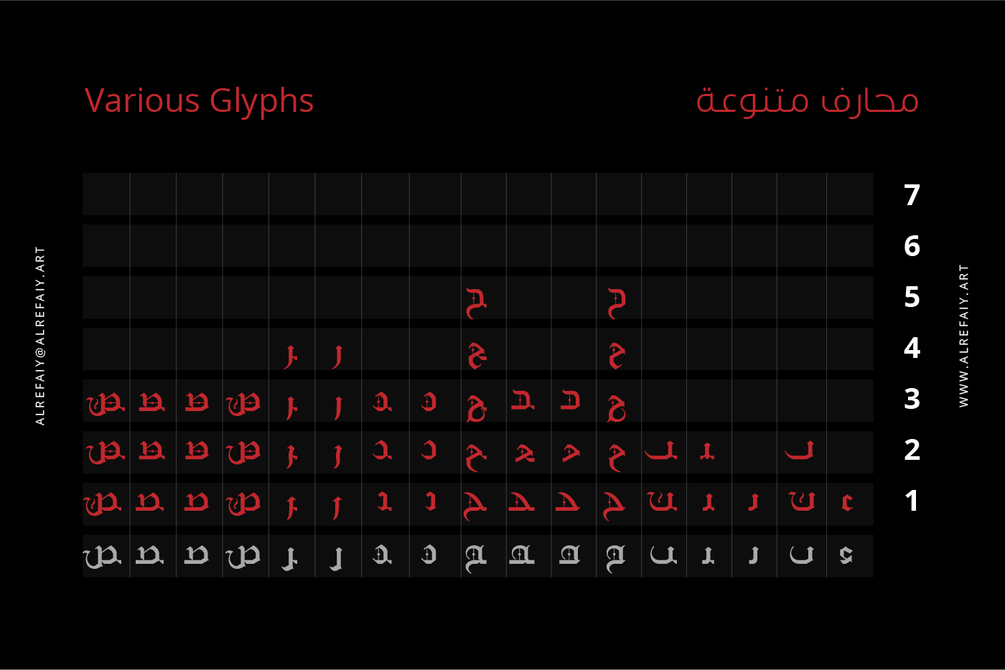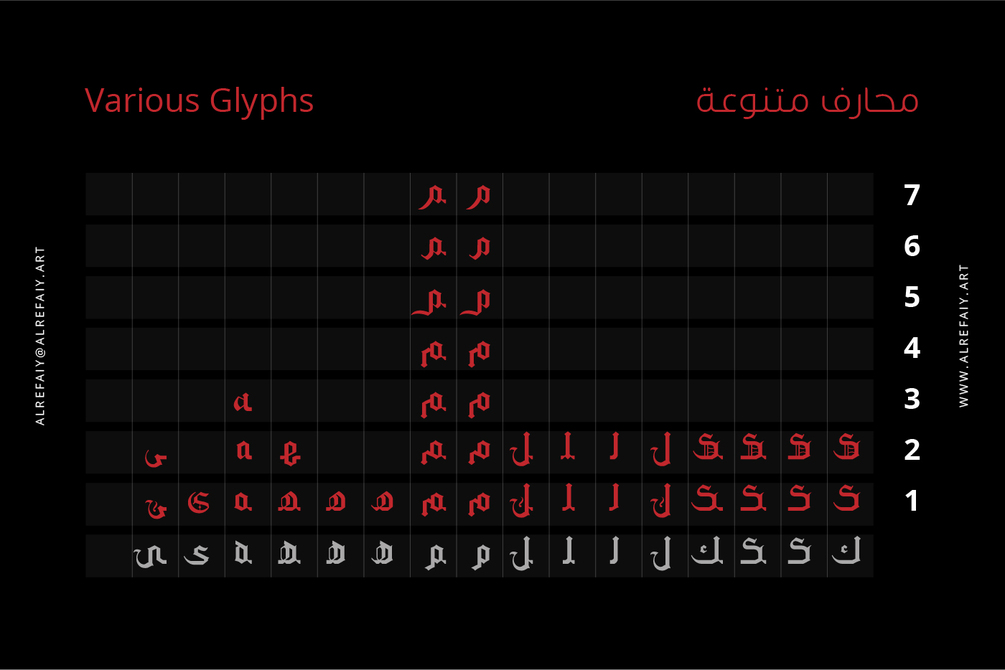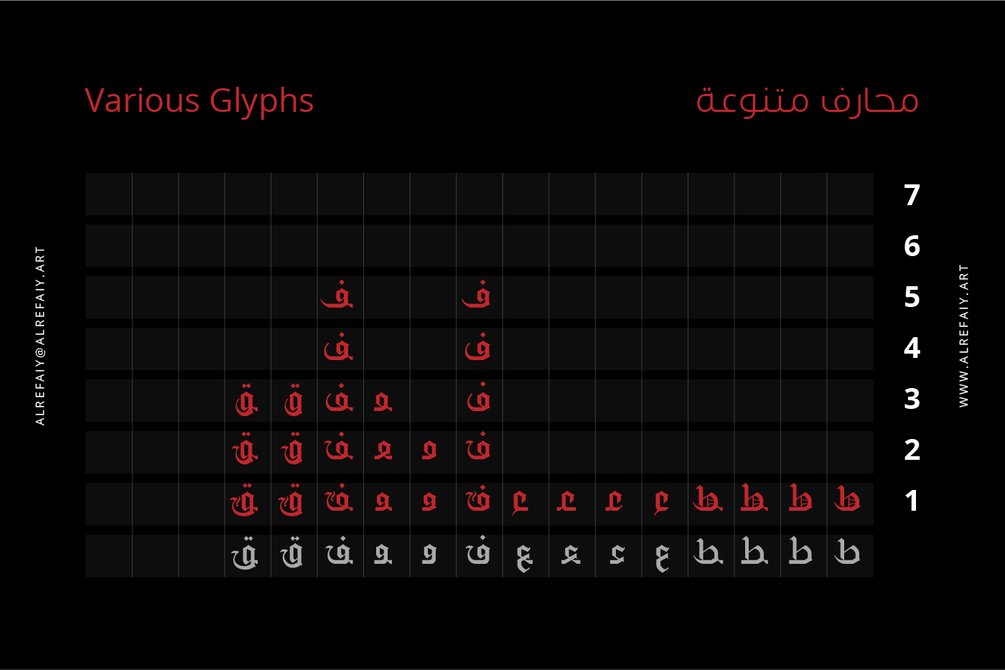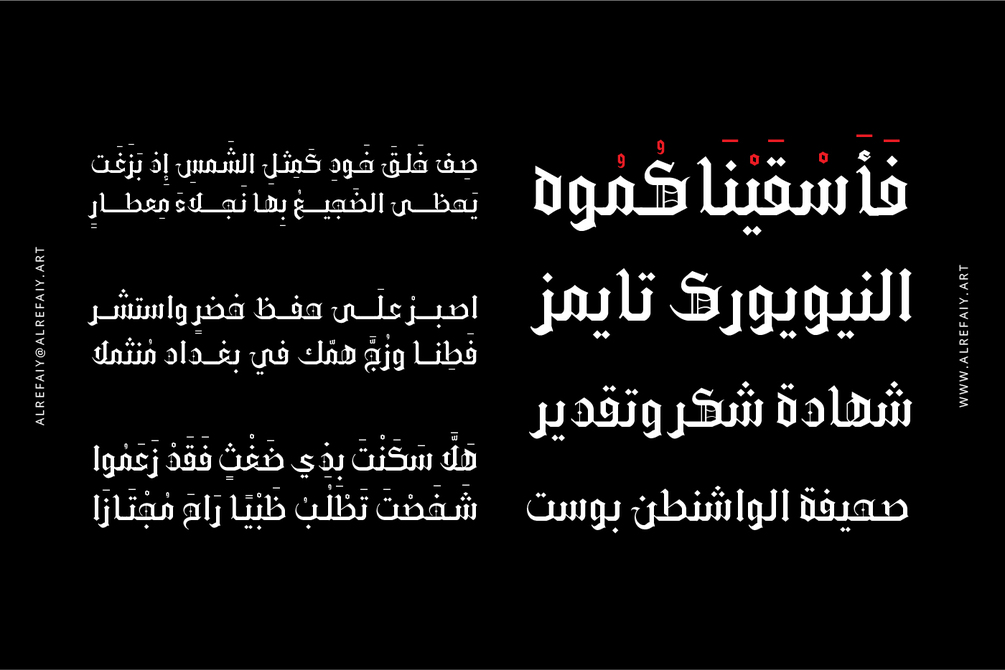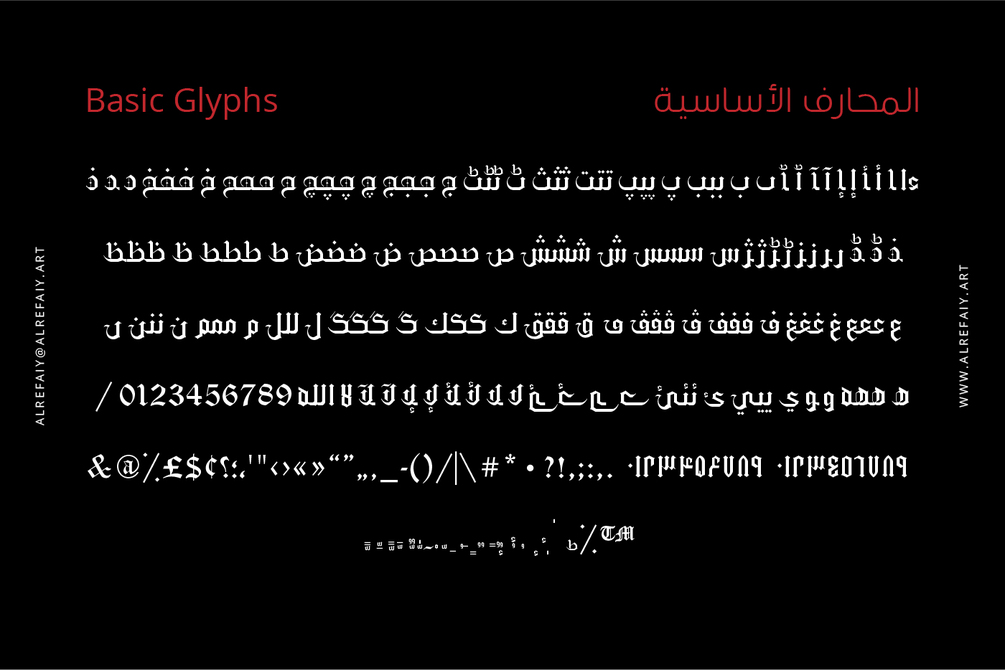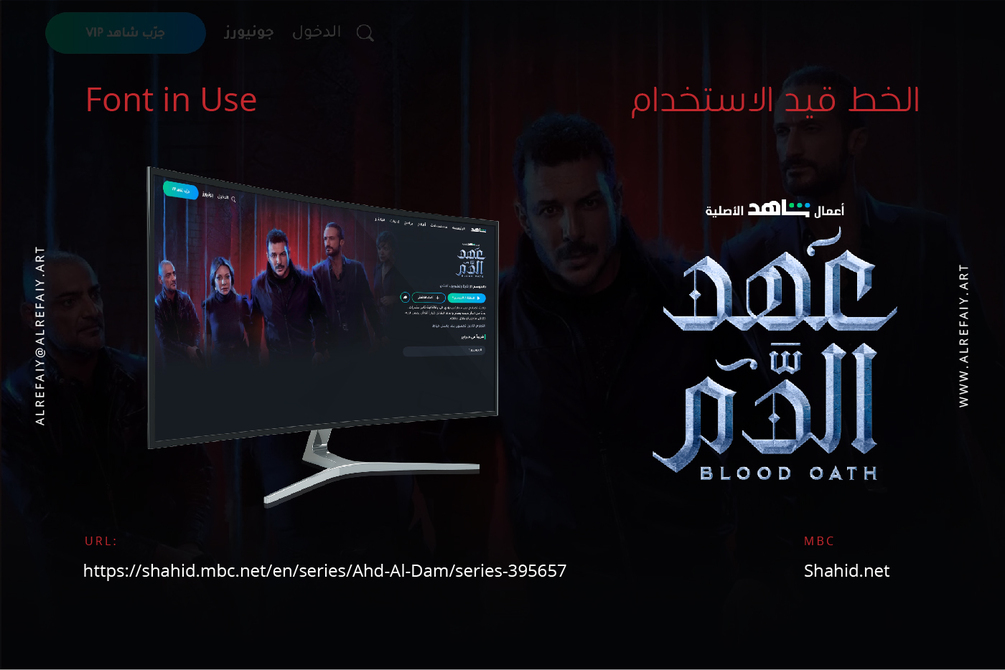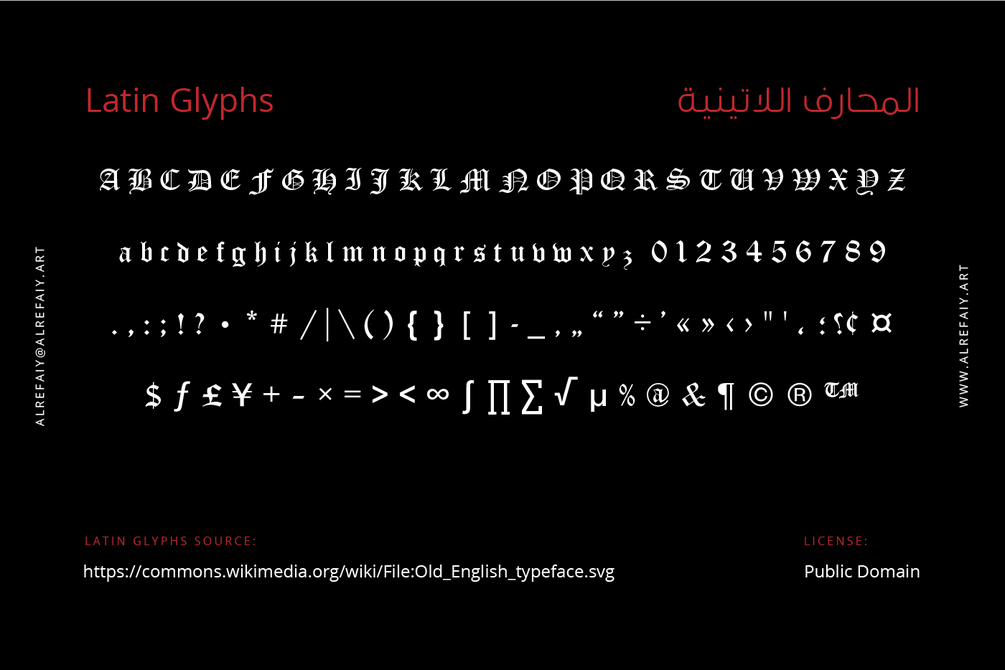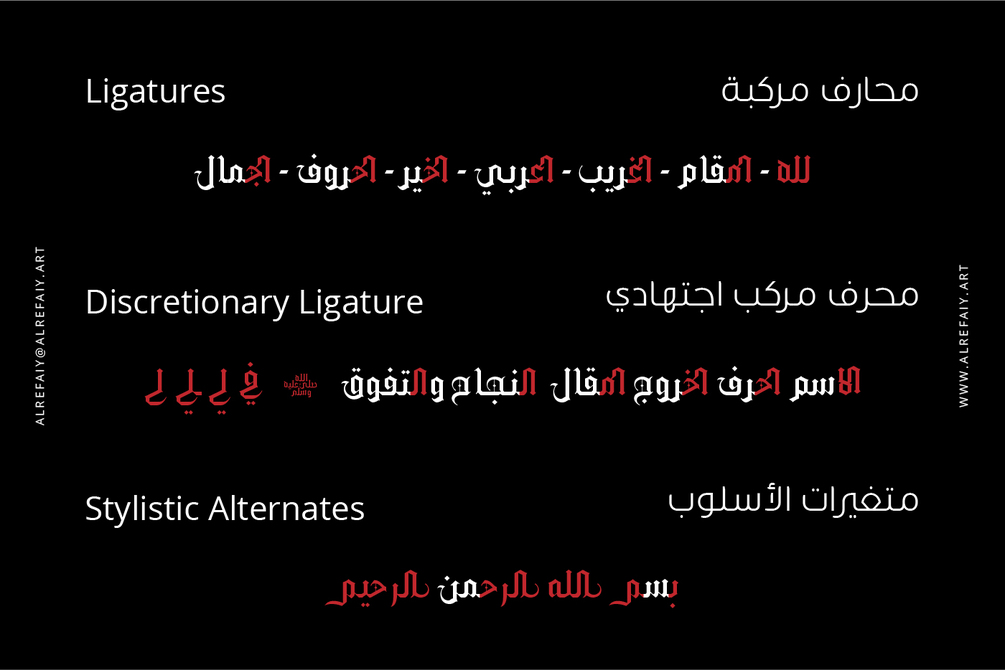
Gothic Arabic A Timeless & Elegant Font
YR Gothic Arabic font draws inspiration from the Gothic calligraphic style, renowned for its timeless elegance. This style is characterized by a harmonious balance of thick and thin strokes, with a focus on vertical lines.
The result is a graceful, fluid letterform, with consistent attention to detail throughout. YR Gothic Arabic font is a sophisticated choice that conveys a sense of refinement and sophistication.
With its classic and timeless design, this font is well-suited for various formal applications, such as branding, invitations, and official documents. Its versatility also allows it to be used in a range of other contexts, including advertising and signage, where its sense of elegance and refinement can elevate any design project.